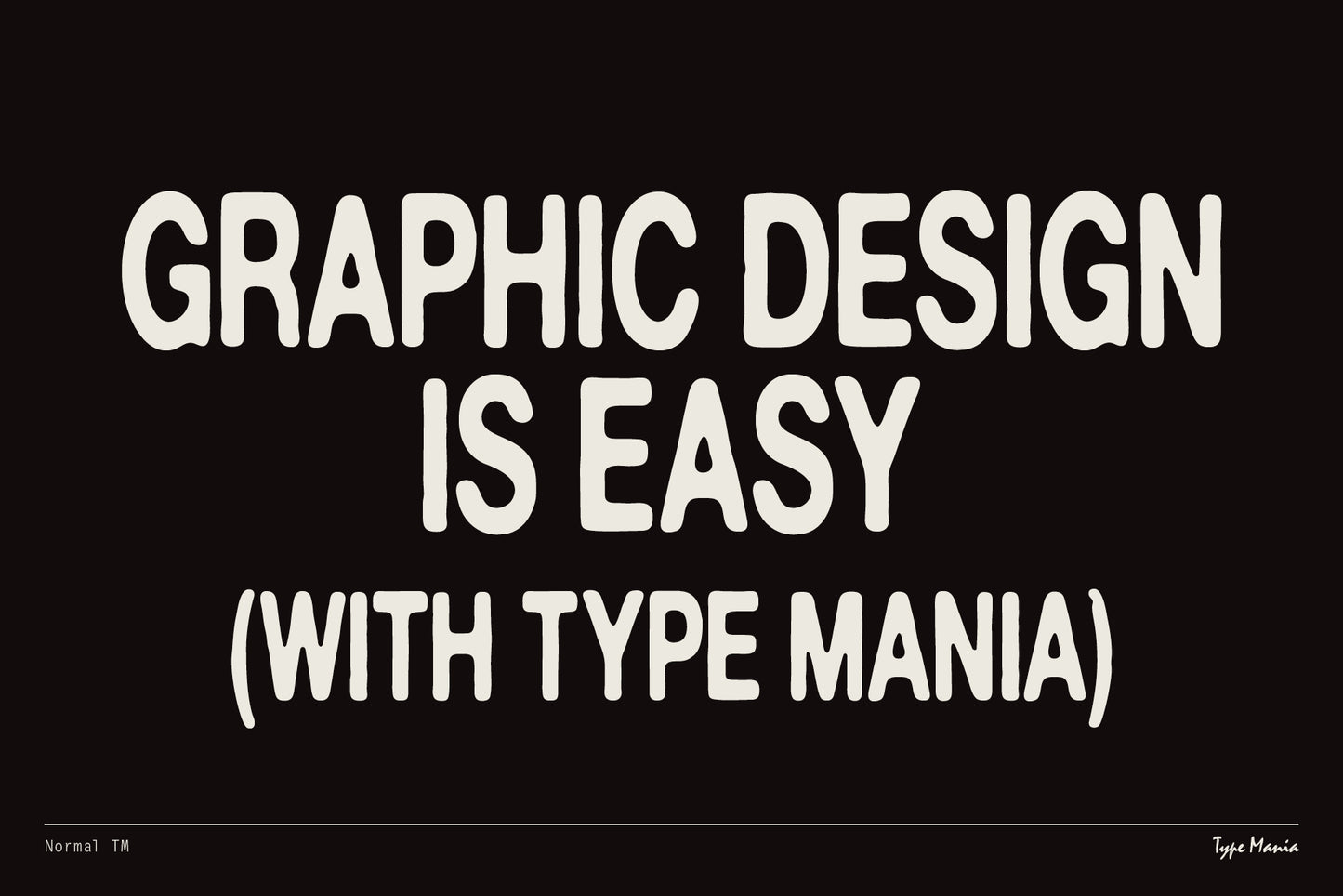
Normal TM
A gently handled typeface Normal TM rotates two stylistic sets with contextual alternatives fired up, making your layout look organic, damn near automatic.
- 2 stylistic sets
- The font is programmed to automatically shift between the stylistic sets